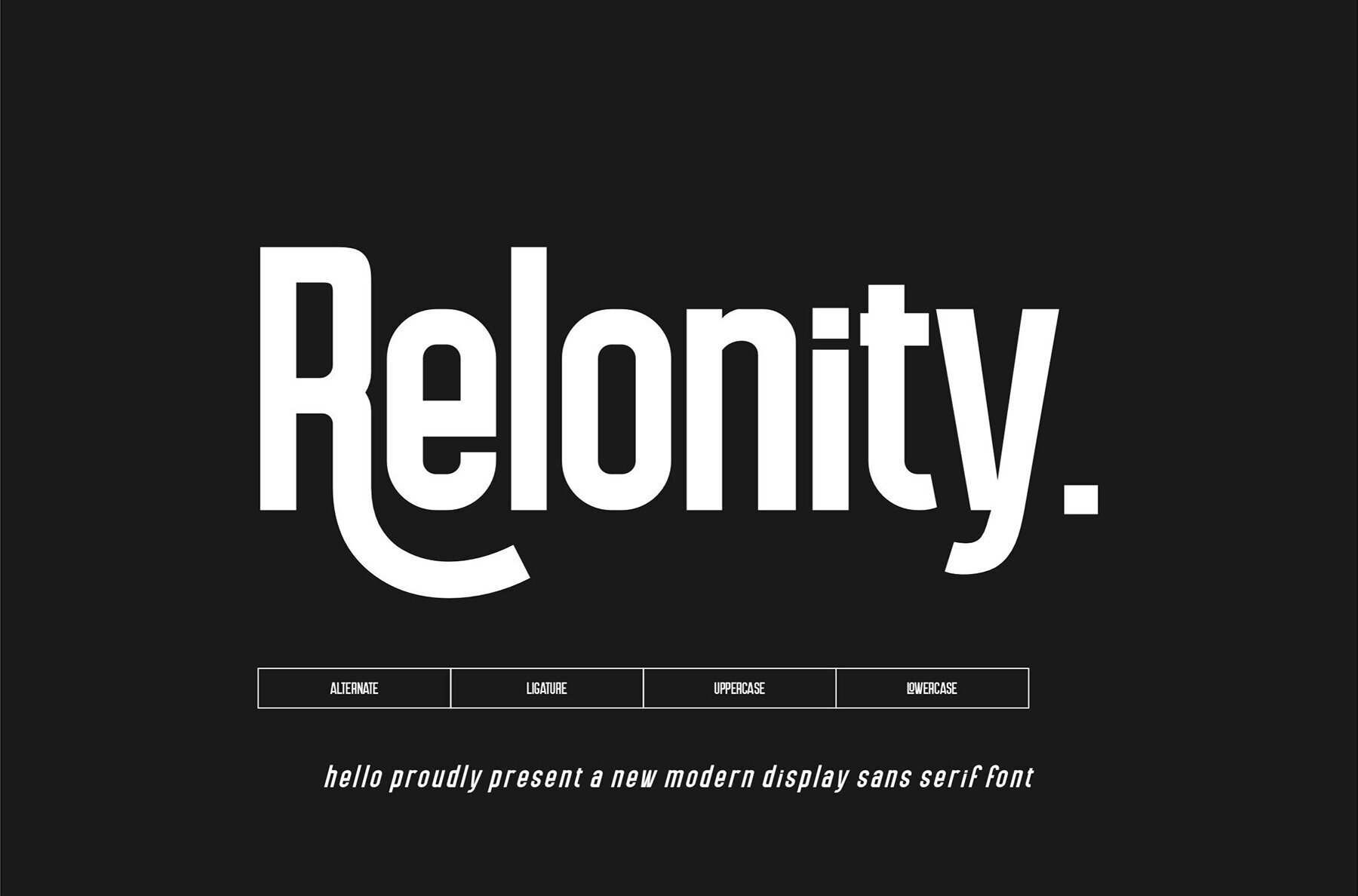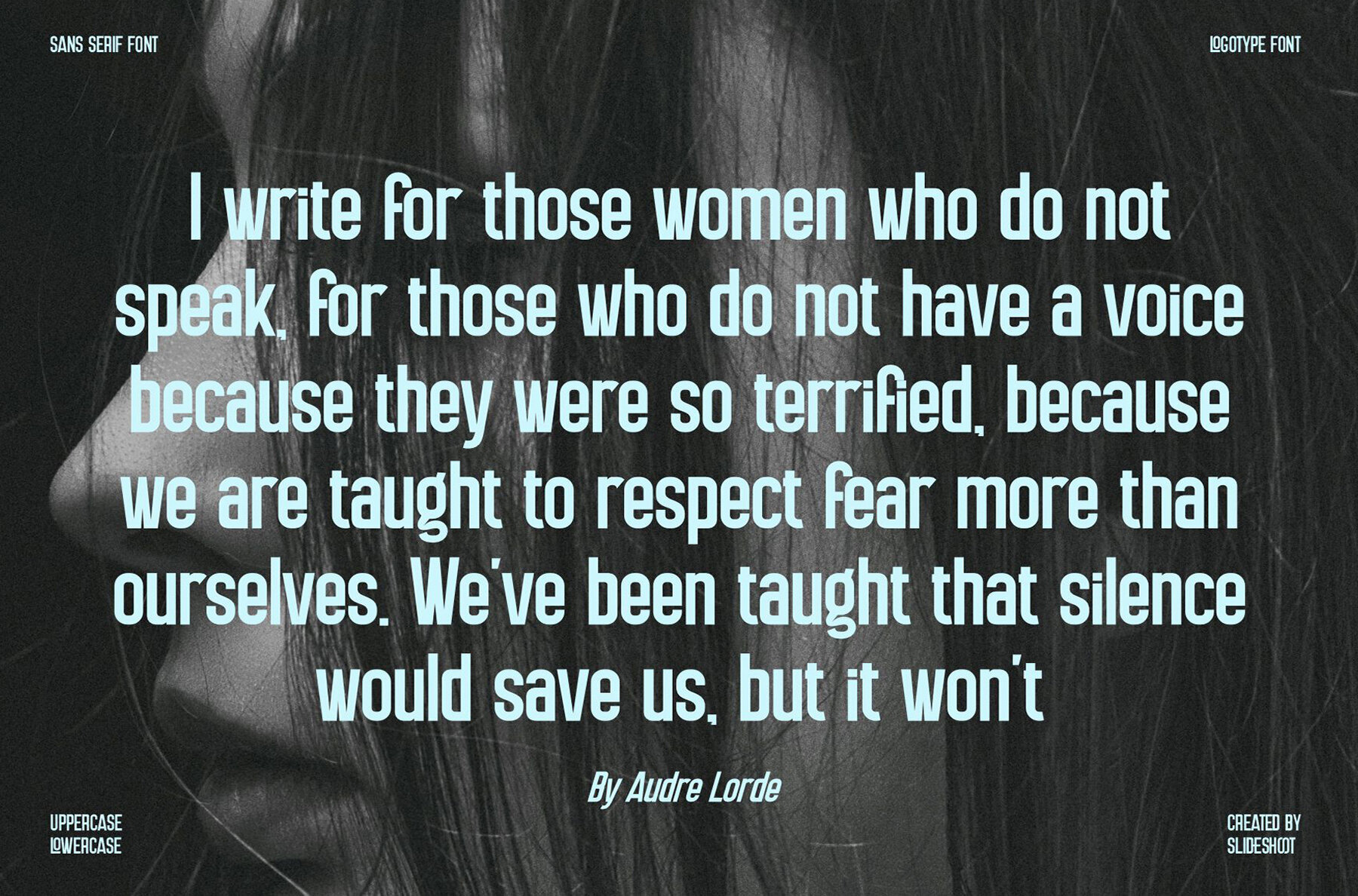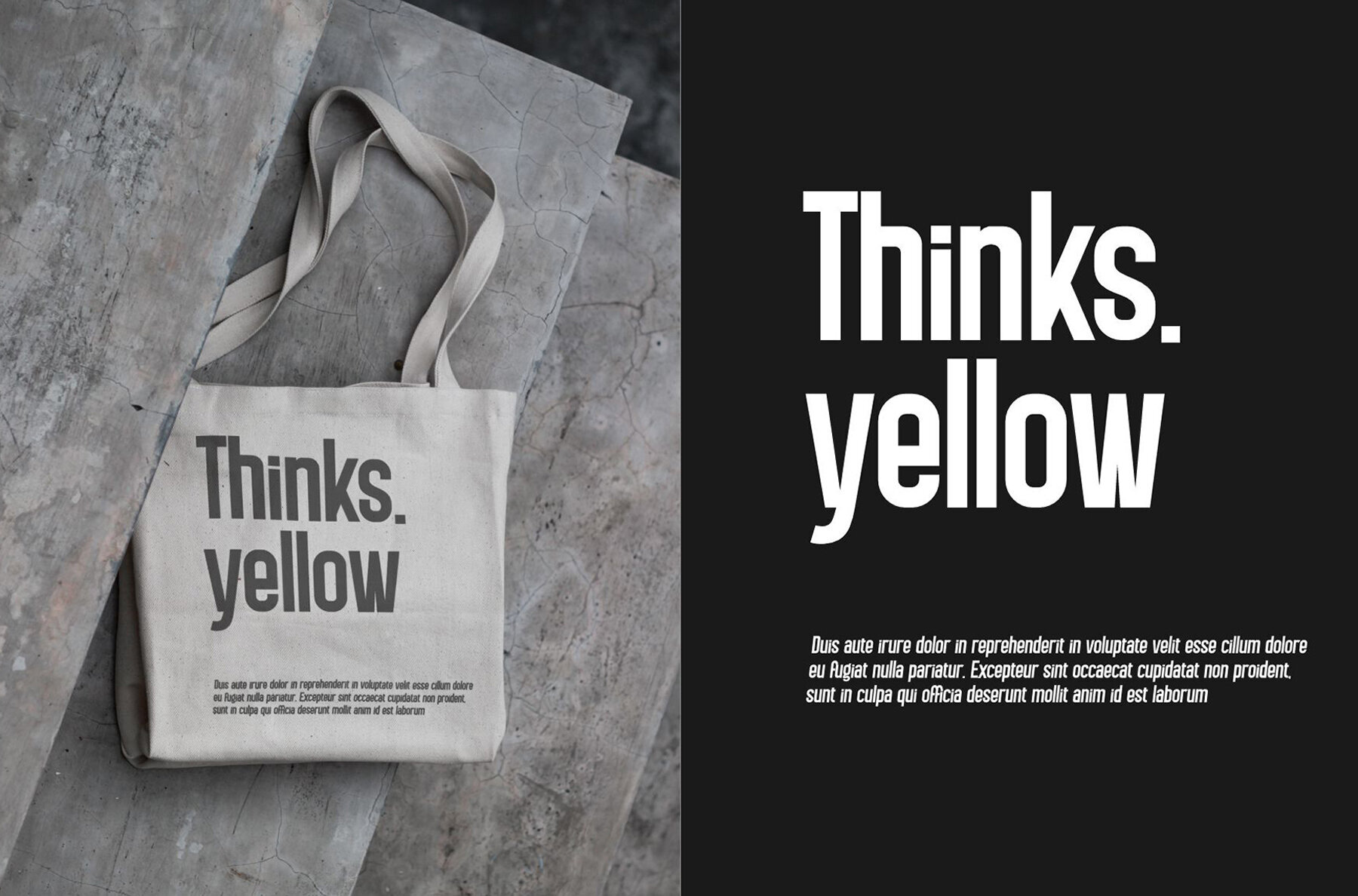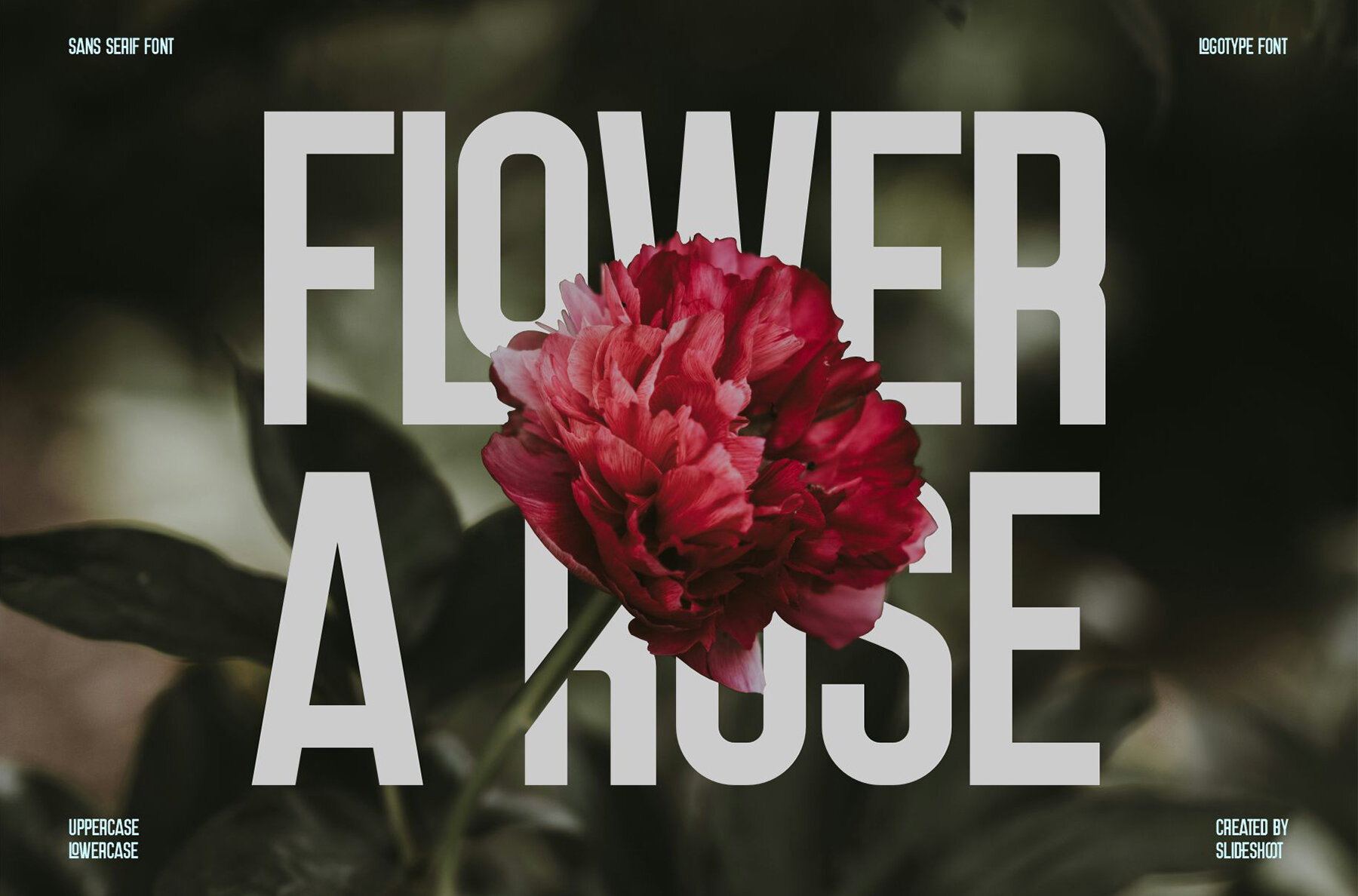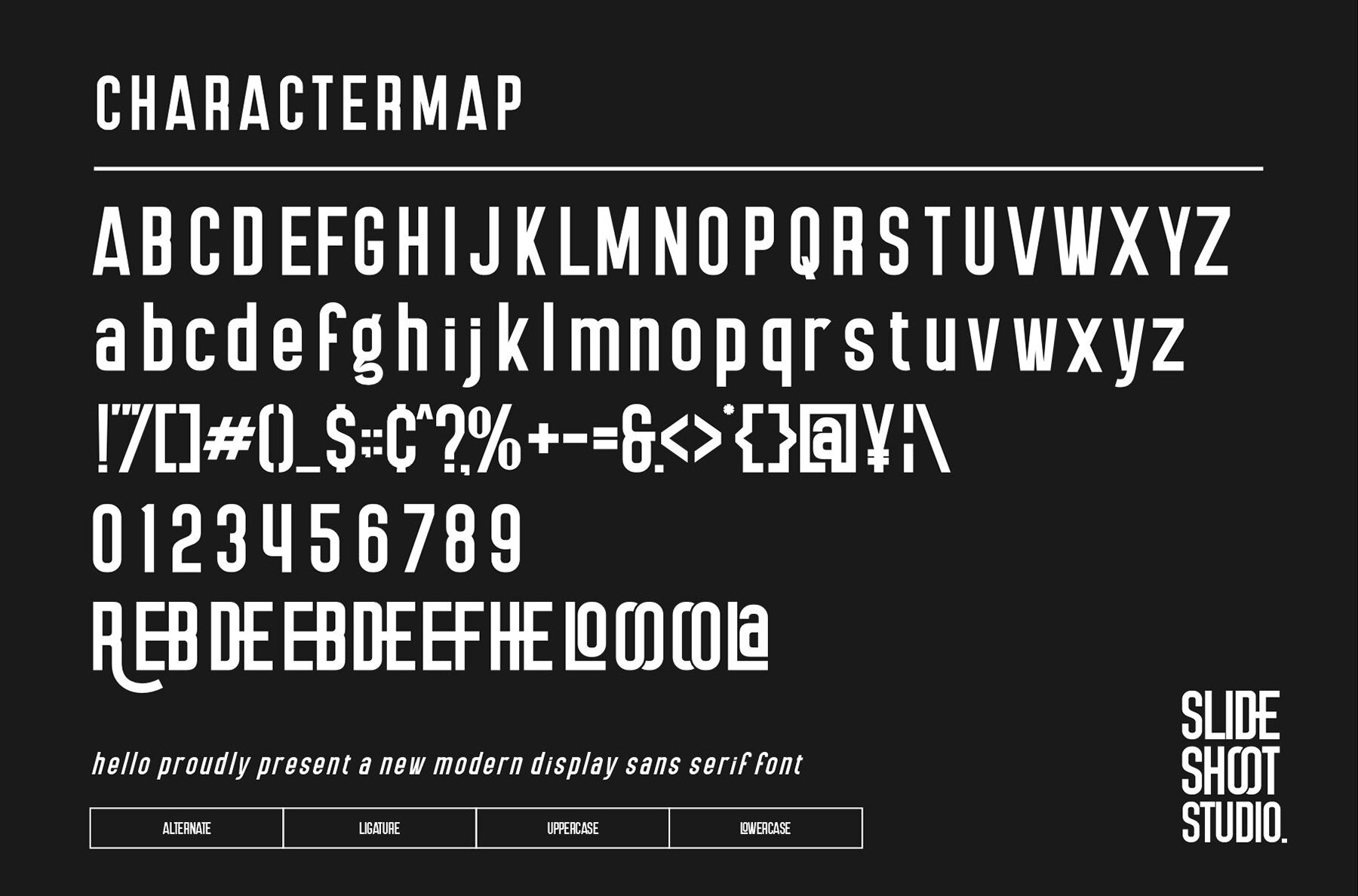
Relonity Font
Relonity
Relonity is a sophisticated condensed serif font that blends elegance with a modern touch. Ideal for a wide range of design applications, it adds a refined appeal to branding, logo design, and lettering. Its sleek lines and distinctive style make it a great choice for logotypes, clothing designs, and posters.
Whether you're working on magazine layouts, packaging, shopping bags, or t-shirt designs, Relonity provides a striking visual impact. It's equally effective in creating captivating book covers, enhancing photography presentations, or adding a unique flair to special events and other design projects. With its versatile design, Relonity stands out as a dynamic tool in any designer's arsenal.